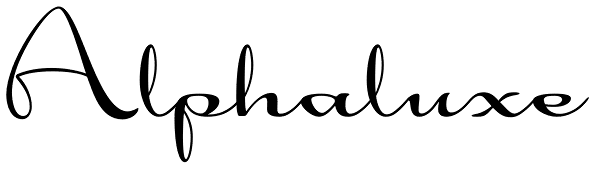
Alphaluxe
Alphaluxe is a distinctive new typeface from Wesley Poole of Hawai’i. This vertical script packs a velvet punch. It compels attention like the best of the futuristic Moderne scripts from the 1930s, (refined by the 1950s) with none of the bulk. The...